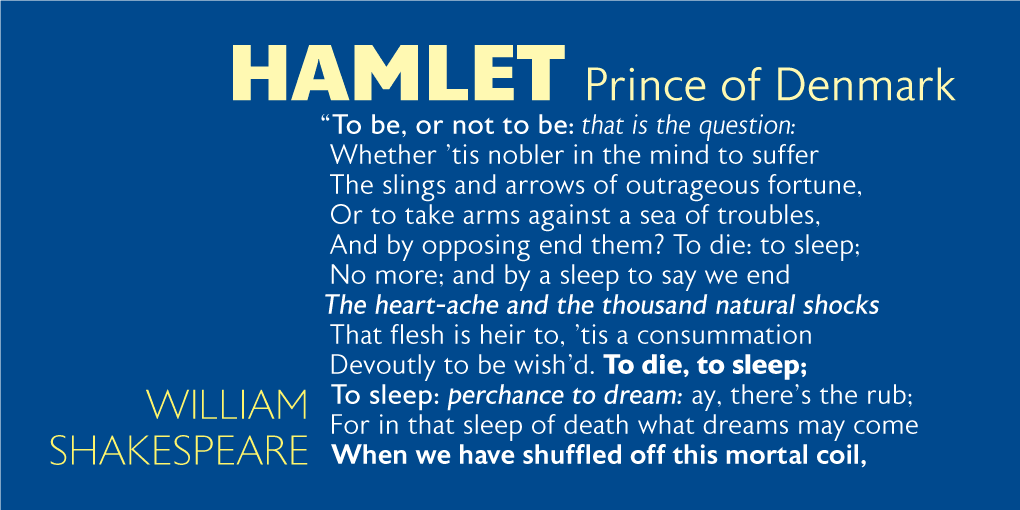
Astoria Sans is a sans serif font family. This typeface has eighteen styles and was published by Alan Meeks Collection.
The Sans serif companion to Astoria.
Based heavily on Gill especially in the mid weights and with a consistant series of condensed weights. Designed specificaly as a text face it still works very well as a headline font.
Astoria Sans: